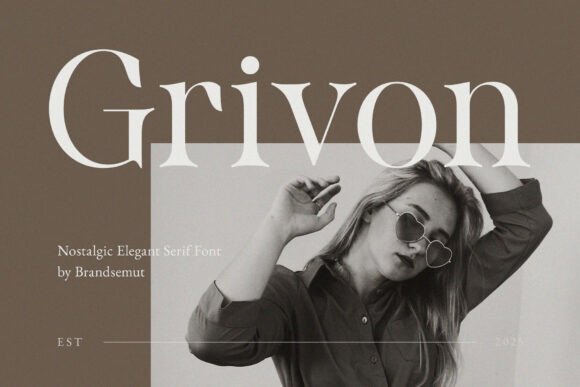
Introducing Grivon Font: A Nostalgic Elegant Serif Font
In the world of typography, fonts play a crucial role in conveying the tone and personality of a brand. With the vast array of fonts available, it can be challenging to find one that stands out from the rest. However, if you’re looking for a font that exudes vintage charm and timeless sophistication, look no further than Grivon Font. In this article, we’ll delve into the world of Grivon Font, exploring its features, benefits, and uses.
What is Grivon Font?
Grivon Font is a nostalgic elegant serif font that captures the essence of vintage charm and timeless sophistication. Designed with beautifully balanced uppercase and lowercase characters, Grivon brings graceful curves, sharp serifs, and a soft rhythm that makes it ideal for various design applications.
Grivon’s design is inspired by classic serif fonts, with a modern twist that sets it apart from traditional fonts. Its elegant curves and refined lines make it perfect for designs that require a touch of sophistication and luxury.
Benefits of Using Grivon Font
So, why choose Grivon Font for your design projects? Here are some benefits of using Grivon Font:
- Vintage Charm: Grivon Font’s nostalgic design evokes a sense of classic elegance, making it perfect for brands that want to convey a sense of tradition and heritage.
- Timeless Sophistication: Grivon’s elegant curves and refined lines ensure that your designs look sophisticated and luxurious, making it ideal for high-end brands.
- Versatility: Grivon Font is versatile and can be used for various design applications, including classic branding, retro packaging, editorial headlines, fashion lookbooks, and artistic visual storytelling.
- Readability: Grivon’s beautifully balanced characters ensure excellent readability, making it perfect for body text and headlines.
Uses of Grivon Font
Grivon Font’s versatility makes it suitable for various design applications. Here are some uses of Grivon Font:
- Classic Branding: Grivon Font’s vintage charm and timeless sophistication make it perfect for classic branding, including logos, business cards, and letterheads.
- Retro Packaging: Grivon’s nostalgic design makes it ideal for retro packaging, including product labels, packaging, and advertisements.
- Editorial Headlines: Grivon’s elegant curves and refined lines make it perfect for editorial headlines, including magazine covers, articles, and blog posts.
- Fashion Lookbooks: Grivon’s sophisticated design makes it ideal for fashion lookbooks, including fashion magazines, catalogs, and online lookbooks.
- Artistic Visual Storytelling: Grivon’s unique design makes it perfect for artistic visual storytelling, including illustrations, posters, and social media graphics.
Grivon Font Style
Grivon Font features beautifully balanced uppercase and lowercase characters, with elegant curves, sharp serifs, and a soft rhythm. The font’s design is characterized by:
- Elegant Curves: Grivon’s curves are smooth and refined, adding to the font’s elegance and sophistication.
- Sharp Serifs: Grivon’s serifs are sharp and well-defined, providing a clear and crisp appearance.
- Soft Rhythm: Grivon’s soft rhythm ensures that the font flows smoothly, making it easy to read and visually appealing.
Pairing Grivon Font with Other Fonts
Pairing Grivon Font with other fonts can enhance its versatility and create visually appealing designs. Here are some font pairing suggestions:
- Sans-Serif Fonts: Pairing Grivon Font with sans-serif fonts, such as Arial or Helvetica, creates a nice contrast between elegant and modern.
- Script Fonts: Pairing Grivon Font with script fonts, such as Pacifico or Great Vibes, adds a touch of elegance and sophistication.
- Display Fonts: Pairing Grivon Font with display fonts, such as bold sans-serif fonts, creates a striking contrast between elegant and bold.
In conclusion, Grivon Font is a nostalgic elegant serif font that captures the essence of vintage charm and timeless sophistication. With its beautifully balanced characters, elegant curves, sharp serifs, and soft rhythm, Grivon Font is ideal for various design applications, including classic branding, retro packaging, editorial headlines, fashion lookbooks, and artistic visual storytelling. Whether you’re looking to create a luxurious brand or add a touch of elegance to your designs, Grivon Font is an excellent choice.